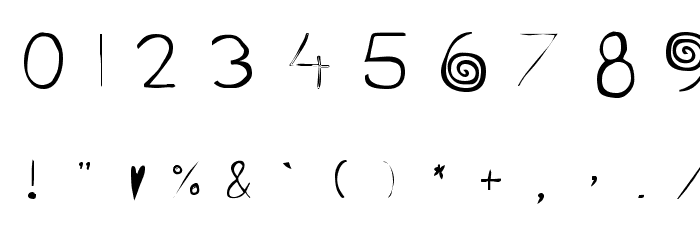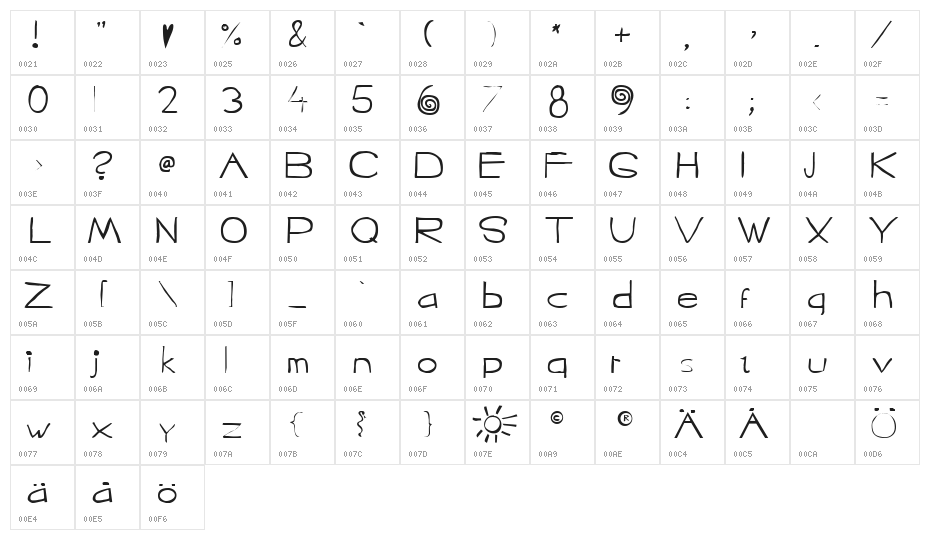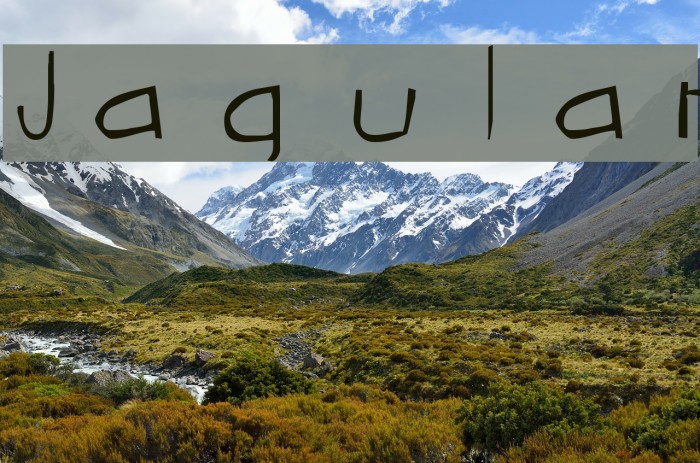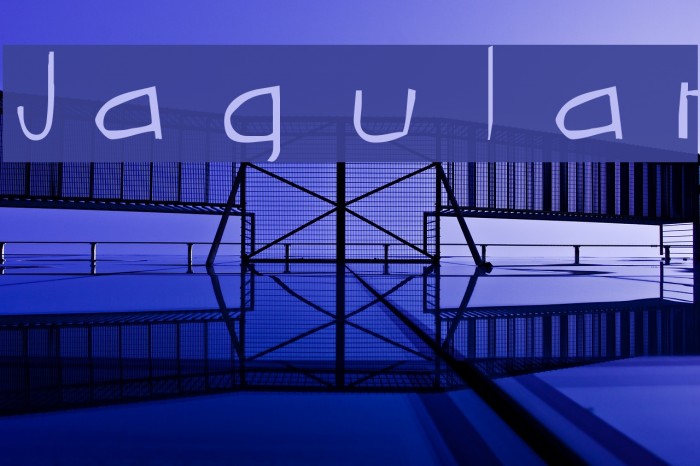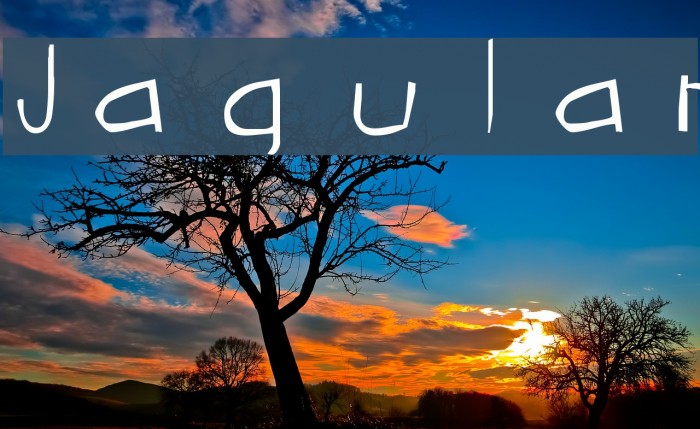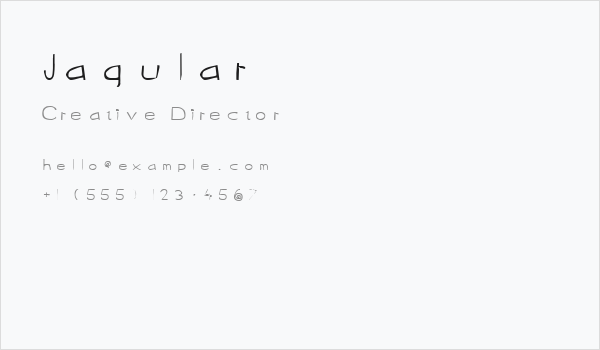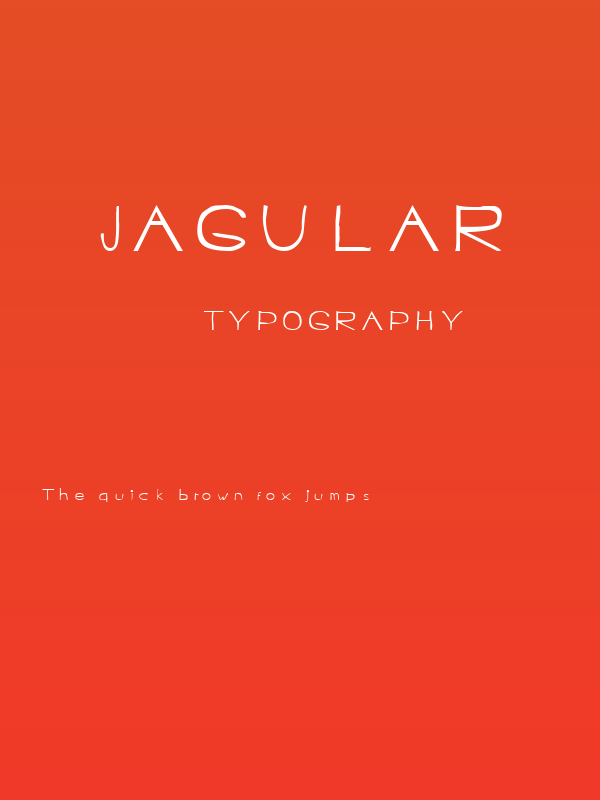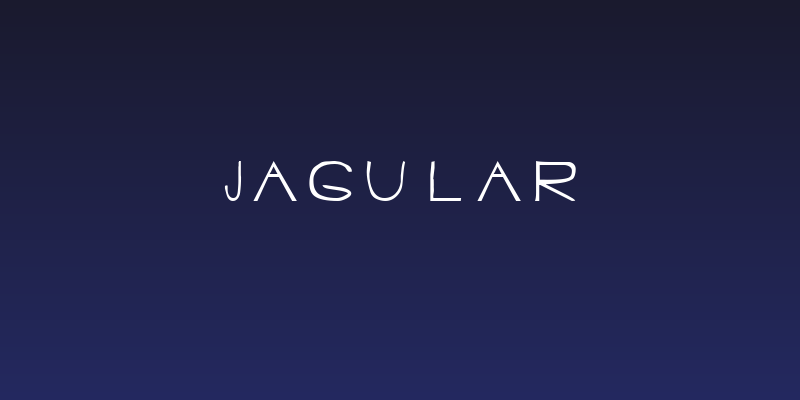
Jagular Font
Jagular Description
This font exhibits a playful and whimsical style, characterized by its irregular and quirky letterforms. The uppercase letters have a slightly uneven baseline, giving them a hand-drawn appearance. The lowercase letters continue this playful theme, with unique variations in stroke width and shape. The numbers are particularly distinctive, featuring creative elements such as spirals and exaggerated curves. Special characters maintain the font's overall quirky aesthetic, adding to its charm. The font's irregularity and distinctive style make it stand out, offering a unique visual appeal.
| Overall Style | Whimsical, Playful |
| Proposed Projects | Ideal for children's books, playful branding, creative posters, and whimsical invitations. |